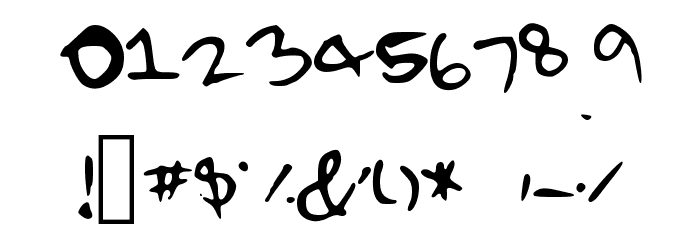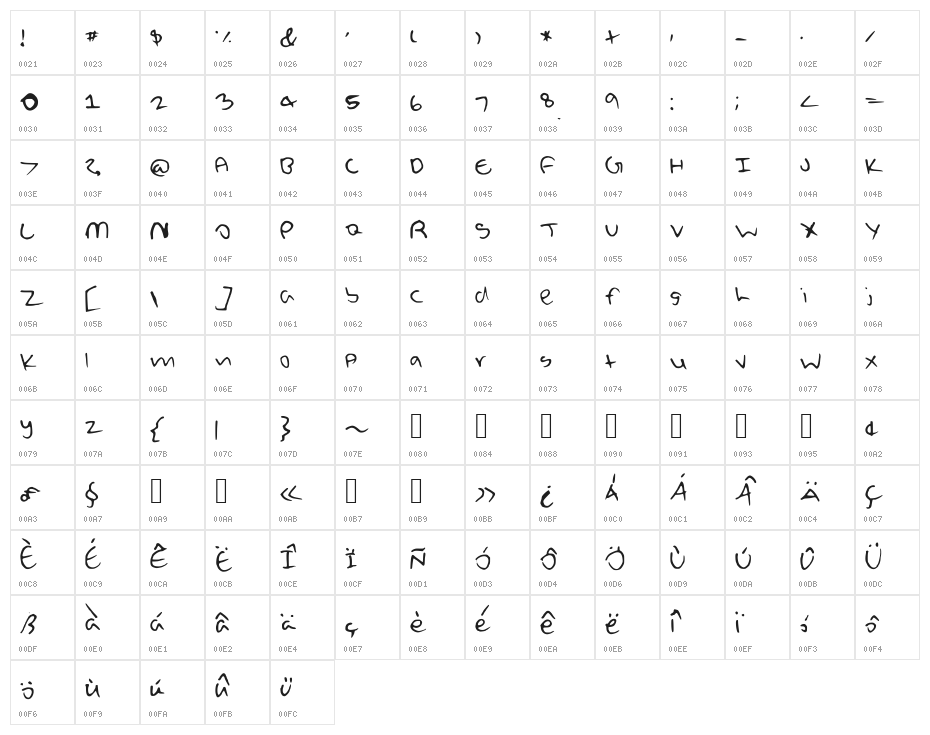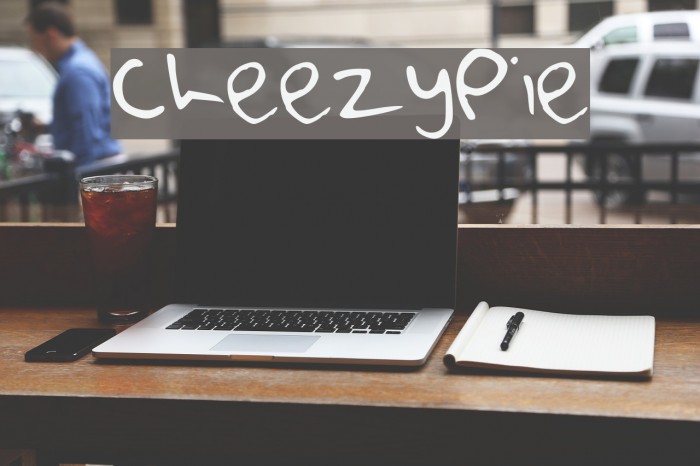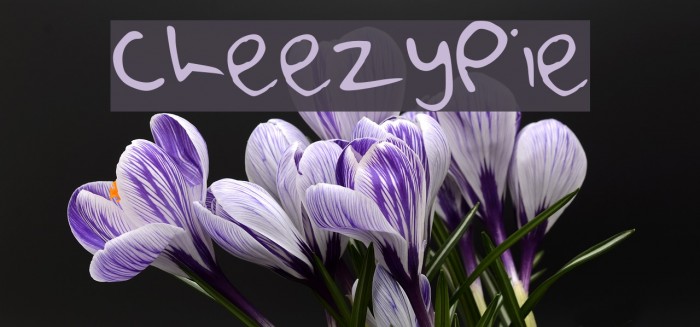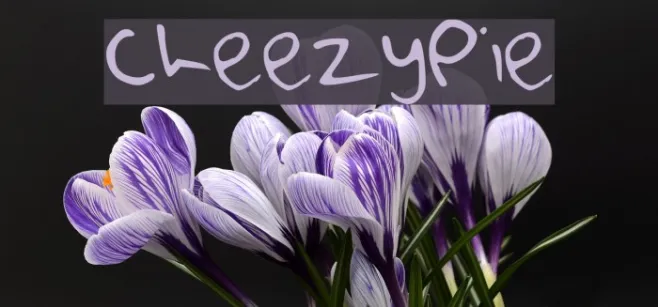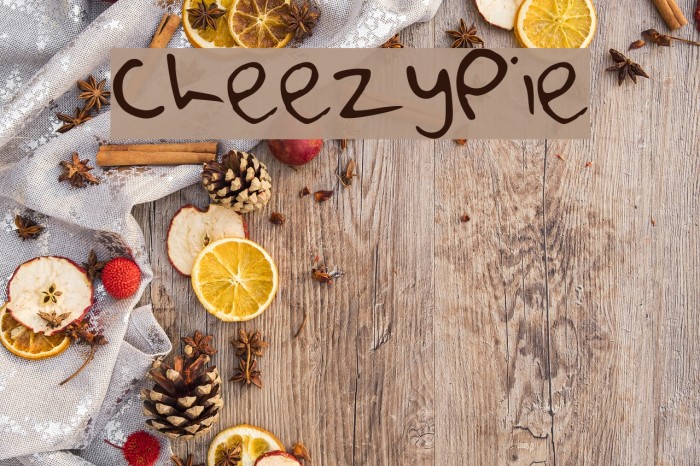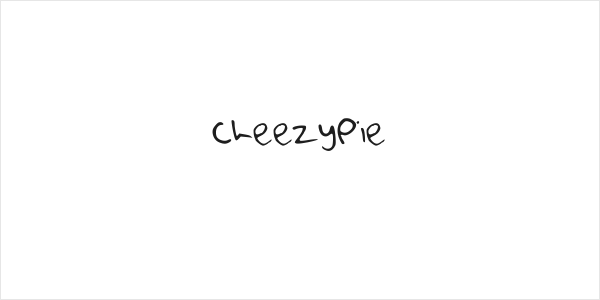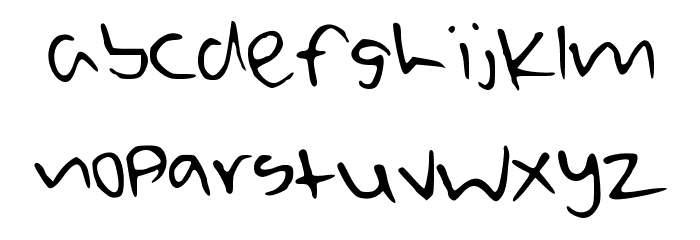
CheezyPie Font
CheezyPie Description
This playful and quirky font features a handwritten style with a casual, informal appearance. The letters are uneven and slightly irregular, giving it a whimsical and fun character. The strokes are smooth and rounded, with a consistent thickness that adds to its approachable feel. The font includes both uppercase and lowercase letters, numbers, and a variety of special characters, making it versatile for different uses. Its unique style is perfect for projects that require a personal touch or a creative flair.